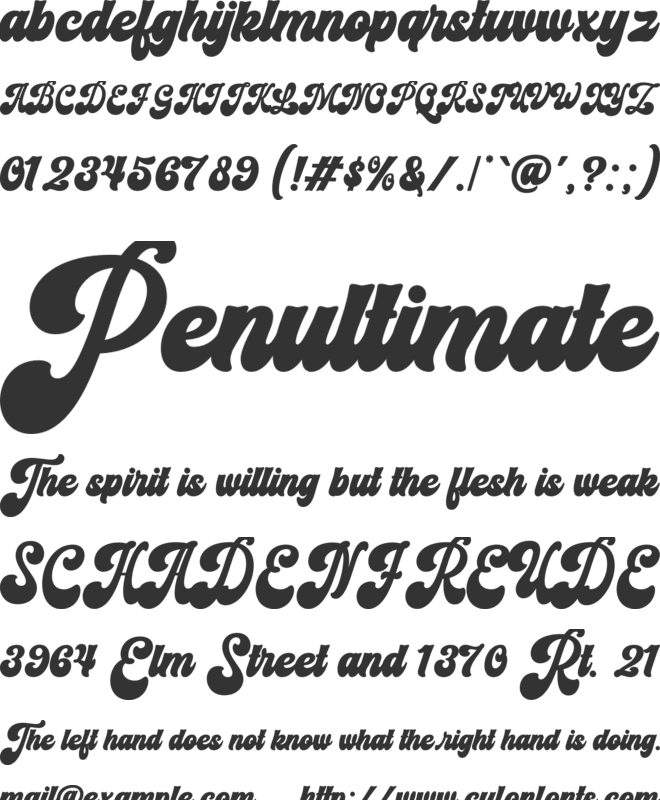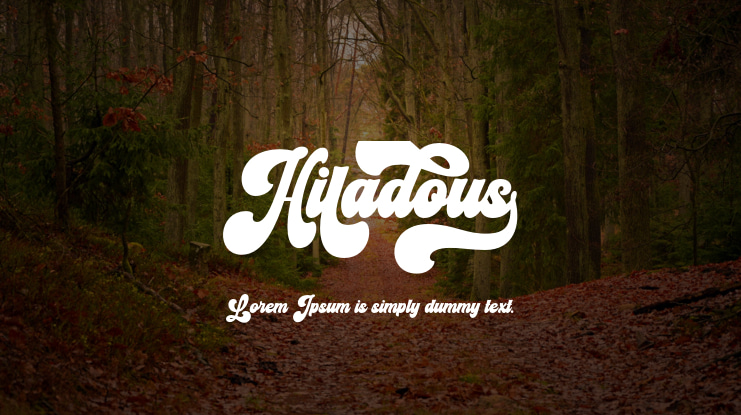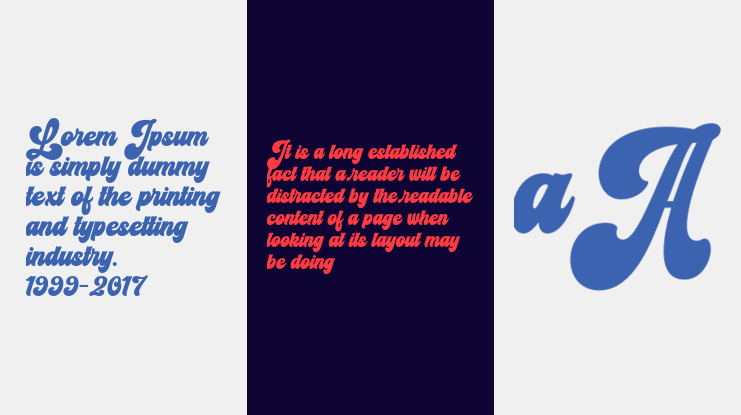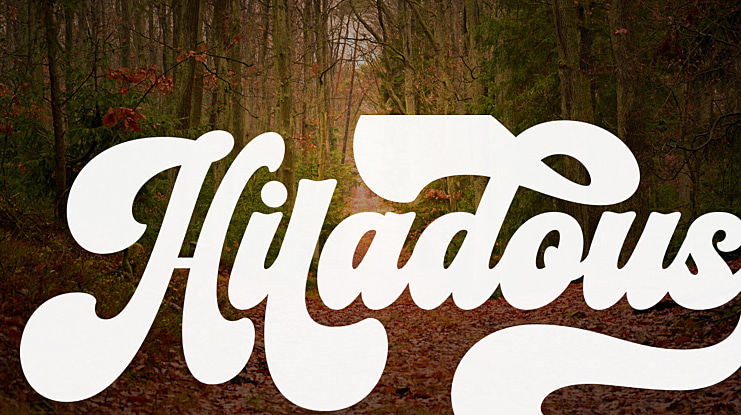
Hiladous Font
Hiladous is a bold and retro-styled handwritten font. This font reads as strong, confident, and dynamic, and can add tons of nostalgic character to your designs.
Hiladous is perfect for branding projects, logo, wedding designs, social media posts, advertisements, product packaging, product designs, label, photography, watermark, invitation, stationery and any projects that need handwriting taste.